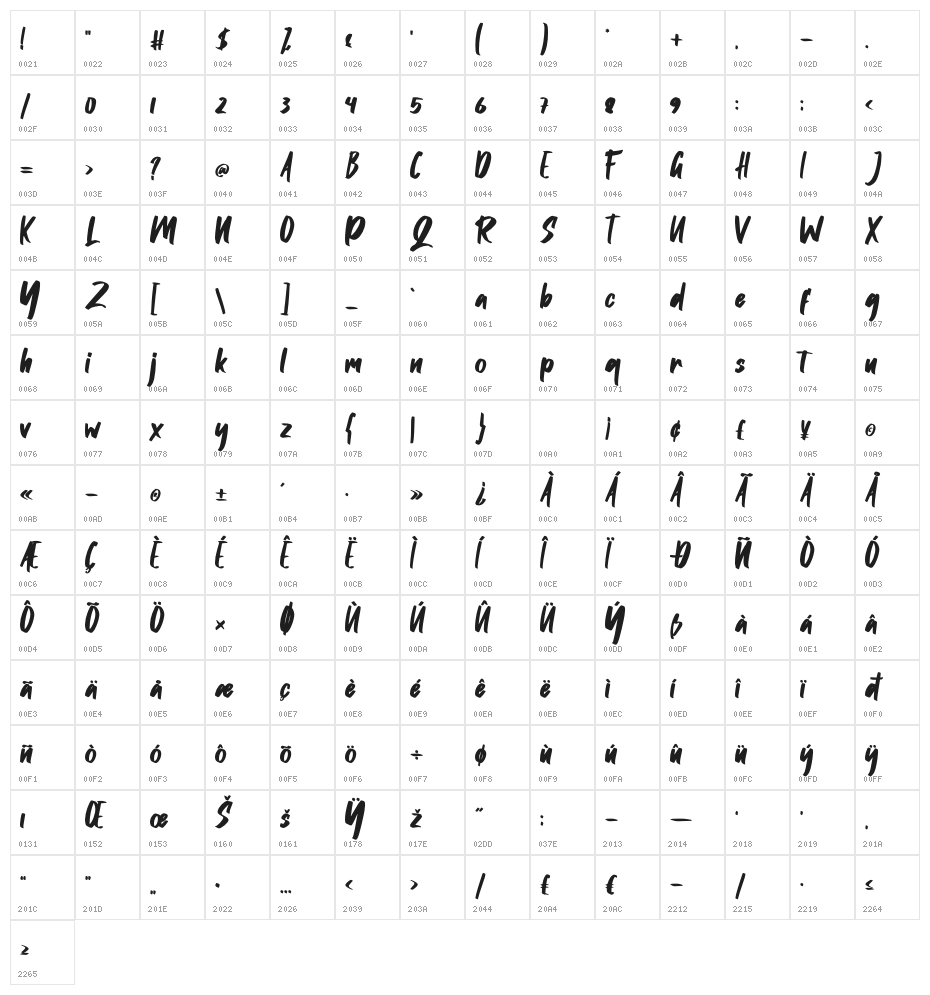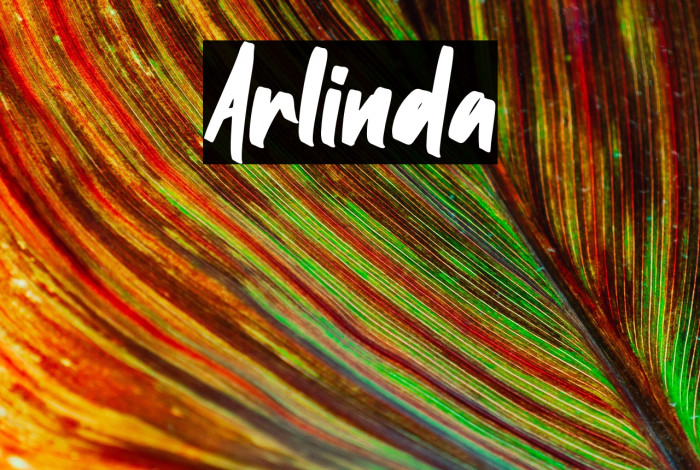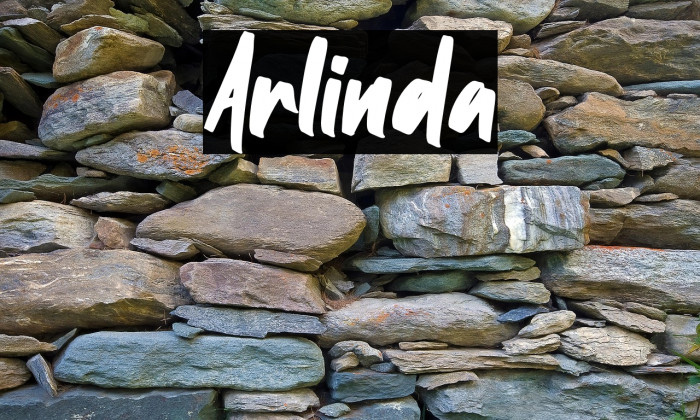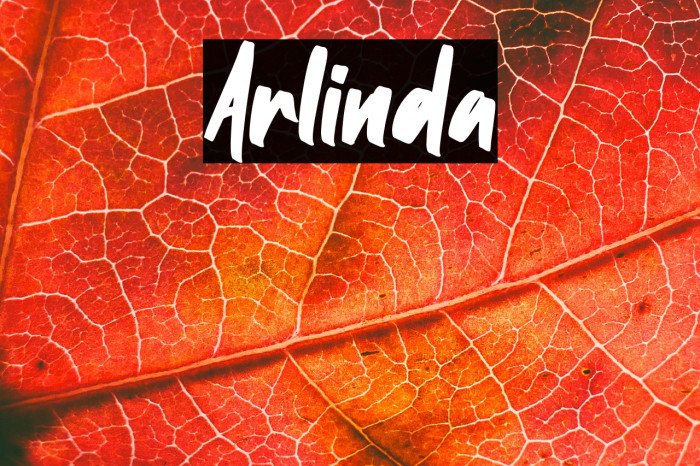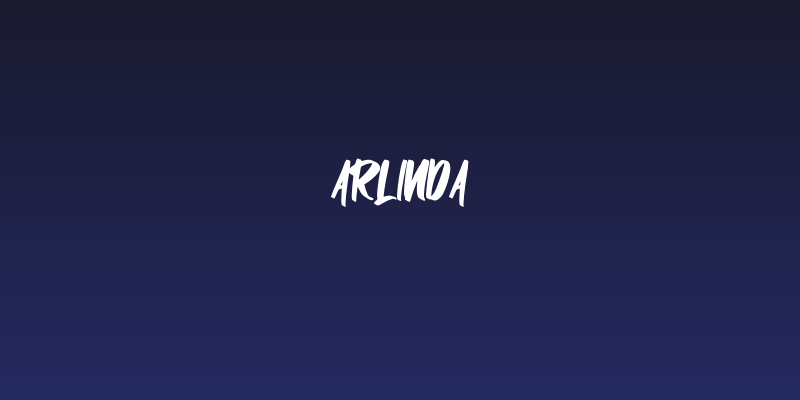
Arlinda Font
Arlinda Description
This font features a bold and expressive handwritten style, characterized by its thick strokes and dynamic flow. The letters have a brush-like appearance, giving them a lively and energetic feel. The uppercase and lowercase characters maintain a consistent style, with slightly exaggerated curves and angles that add to its playful nature. Numbers and special characters are designed to match the overall aesthetic, ensuring a cohesive look across all text elements. The font's informal and artistic vibe makes it suitable for creative and eye-catching designs.
| Proposed Projects | Ideal for branding, posters, social media graphics, and creative advertising campaigns. |